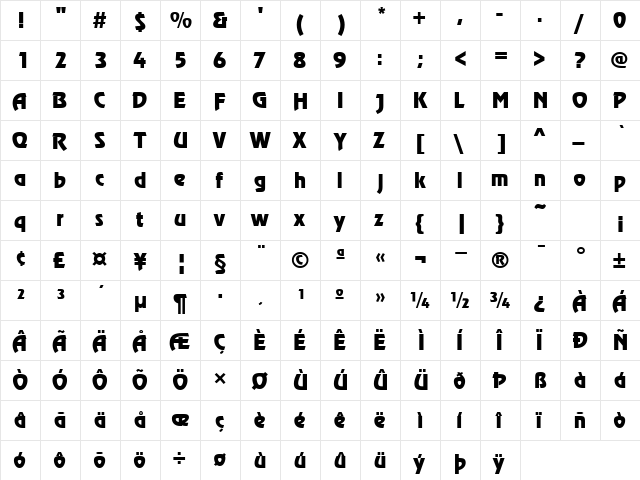
BrouhaSSK Regular Font Preview
BrouhaSSK Regular
Design Context for BrouhaSSK Typeface
BrouhaSSK offers clean, dependable letterforms without strong stylistic allegiance, making it a practical choice for designers who need flexibility.
Pro Tip: Use BrouhaSSK in both headline and body roles to test its range before committing to a single application.